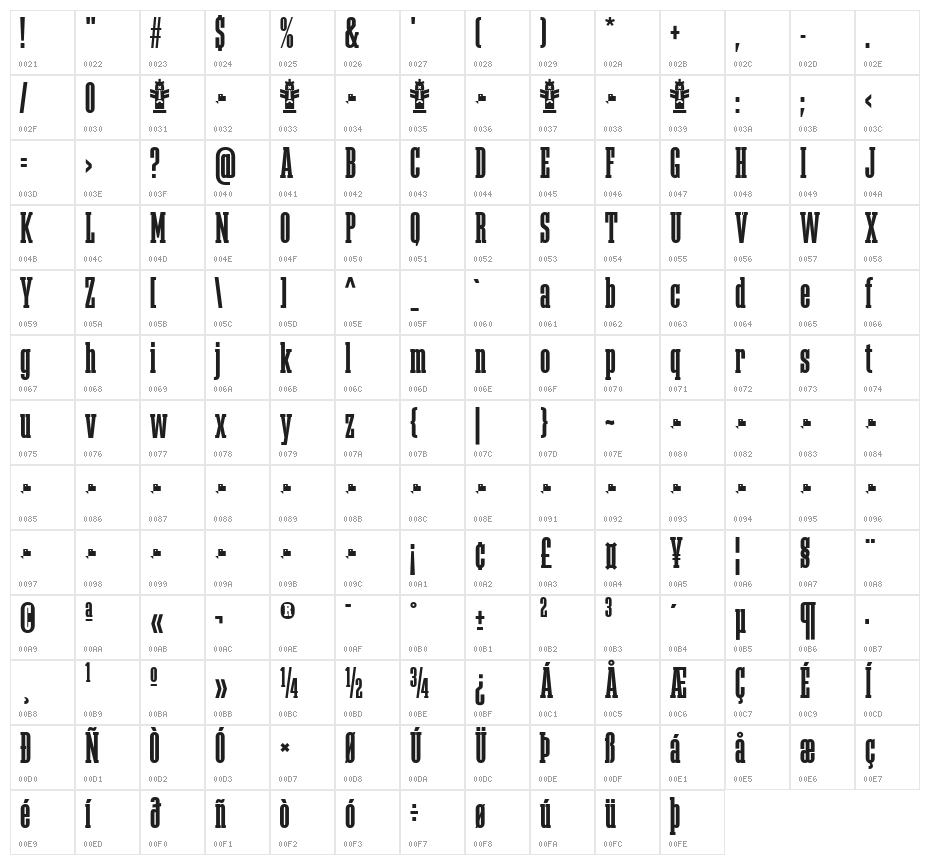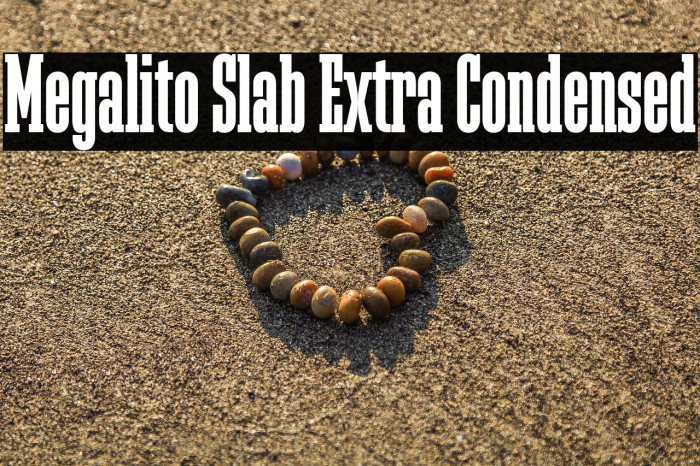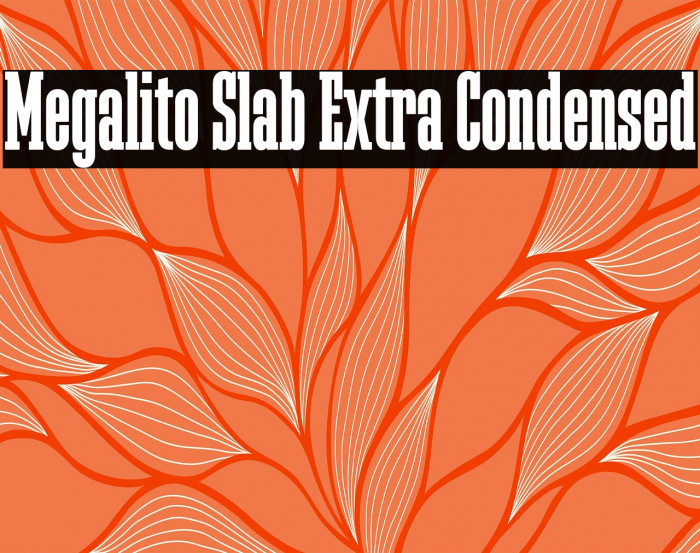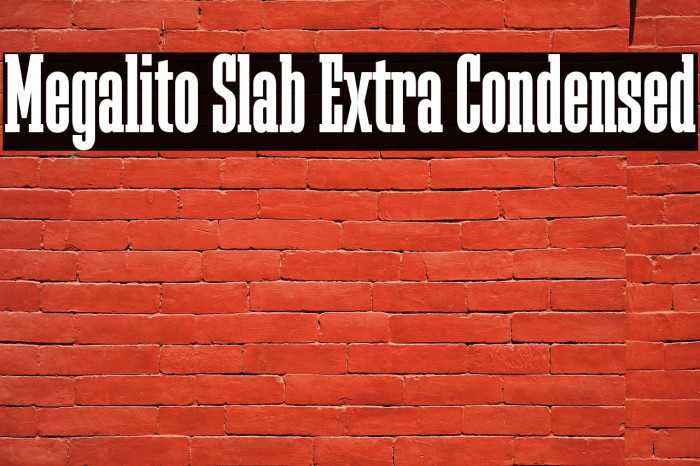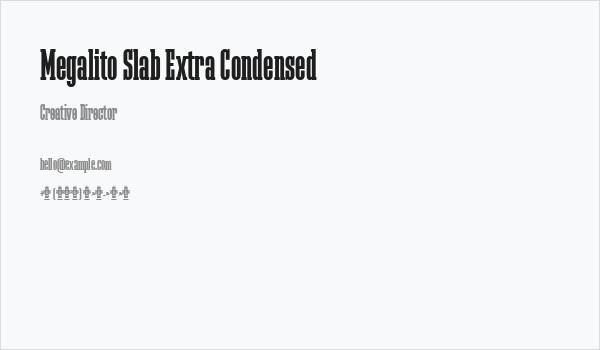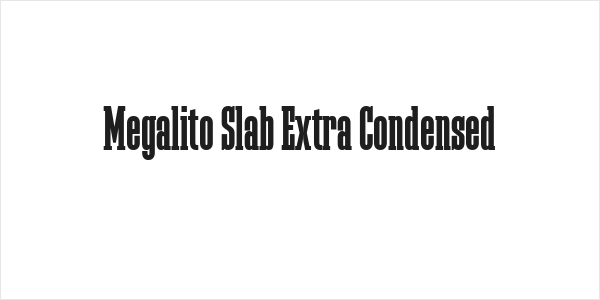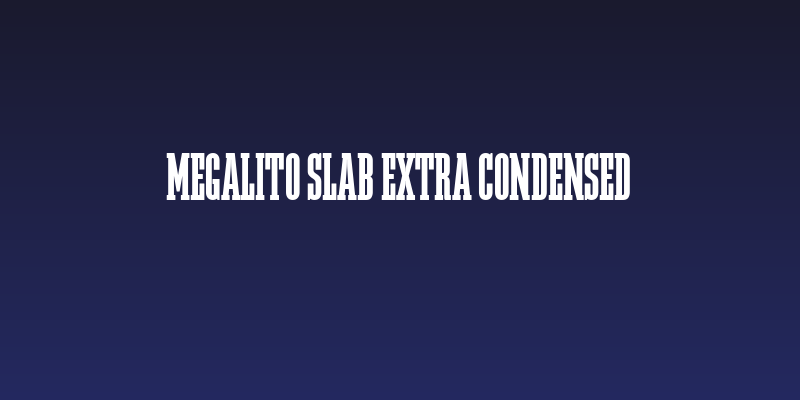
Megalito Slab Extra Condensed Font
Megalito Slab Extra Condensed Description
This font exhibits a bold and striking slab serif style with extra condensed letterforms. The uppercase and lowercase characters maintain a consistent weight, emphasizing vertical strokes with minimal contrast. The design is robust and impactful, making it suitable for attention-grabbing headlines. The condensed nature allows for efficient use of space, while the slab serifs add a touch of vintage charm. The numerals and special characters follow the same bold and condensed aesthetic, ensuring uniformity across all glyphs.
Overall StyleVintage
Proposed ProjectsIdeal for poster designs, branding projects, and editorial headlines where a bold statement is needed.